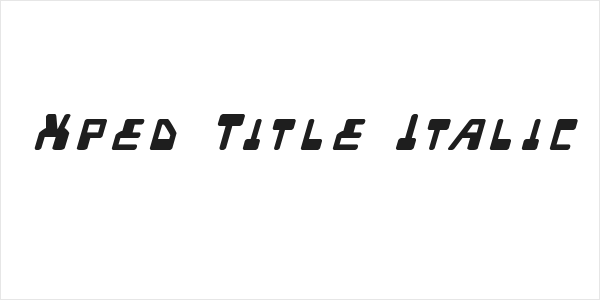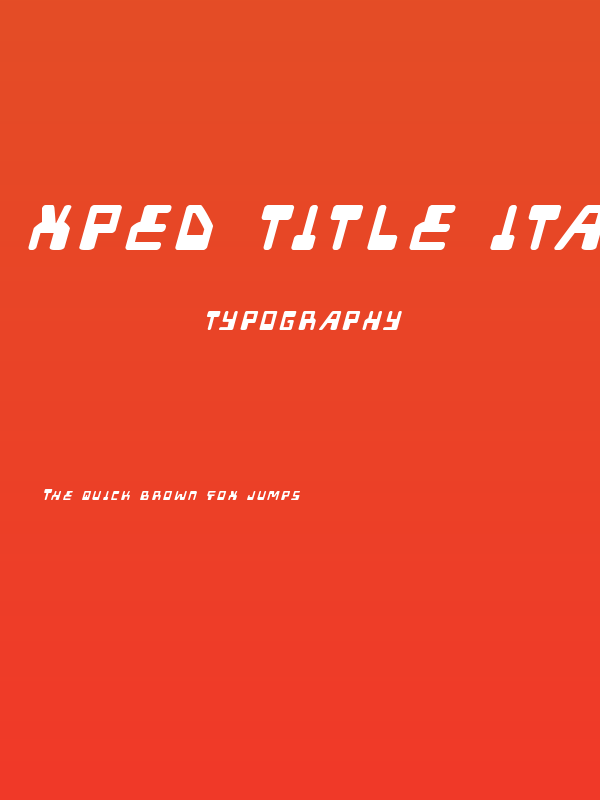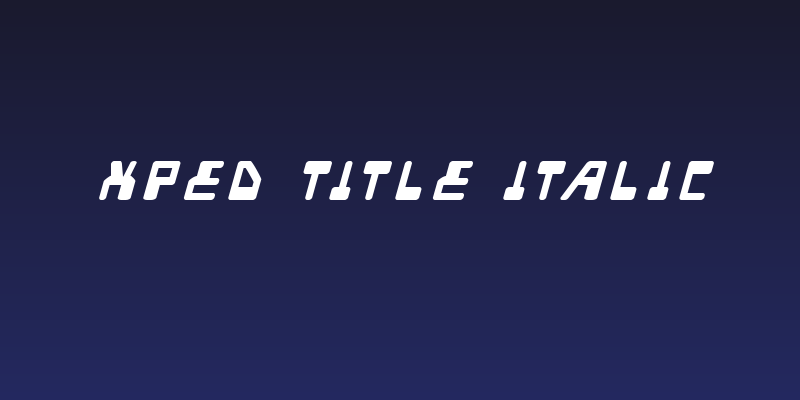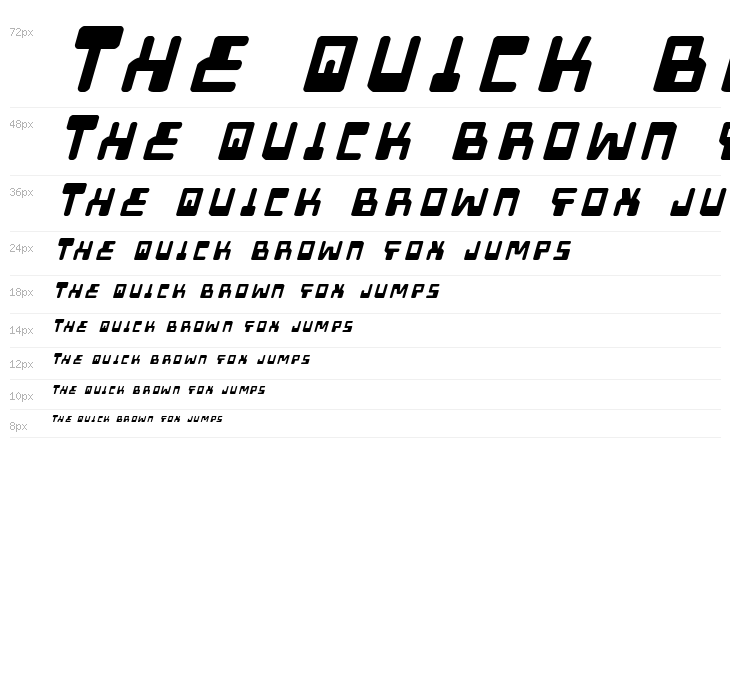
Xped Title Italic Font
Xped Title Italic Description
This font features a bold and dynamic style with a distinct italic slant, giving it a sense of motion and energy. The characters are designed with a geometric structure, incorporating sharp angles and clean lines. The uppercase and lowercase letters maintain a consistent style, with the uppercase being slightly more pronounced. The numerals are clear and easy to read, matching the overall aesthetic of the font. Special characters are included, each designed to complement the bold and angular nature of the font. This typeface is well-suited for projects that require a modern and impactful look.
| Proposed Projects | Ideal for sports branding, dynamic posters, modern logos, and tech-related designs. |